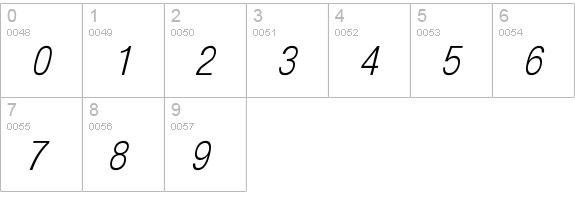
Olnova-RegularCondIta font is a modern and stylish typeface that exudes elegance and sophistication. Its sleek lines and graceful curves make it perfect for a wide range of design projects, from branding to editorial design. The italic style adds a touch of flair and personality to any text, making it stand out and grab attention. What's even better is that Olnova-RegularCondIta font is available for free download at FontsMarket.com. This means you can easily access this beautiful font and use it in your projects without any cost. Whether you're a professional designer looking to add a new font to your collection or a hobbyist working on a personal project, Olnova-RegularCondIta font is a fantastic choice that won't break the bank. Download it today and elevate your designs with this stunning typeface.